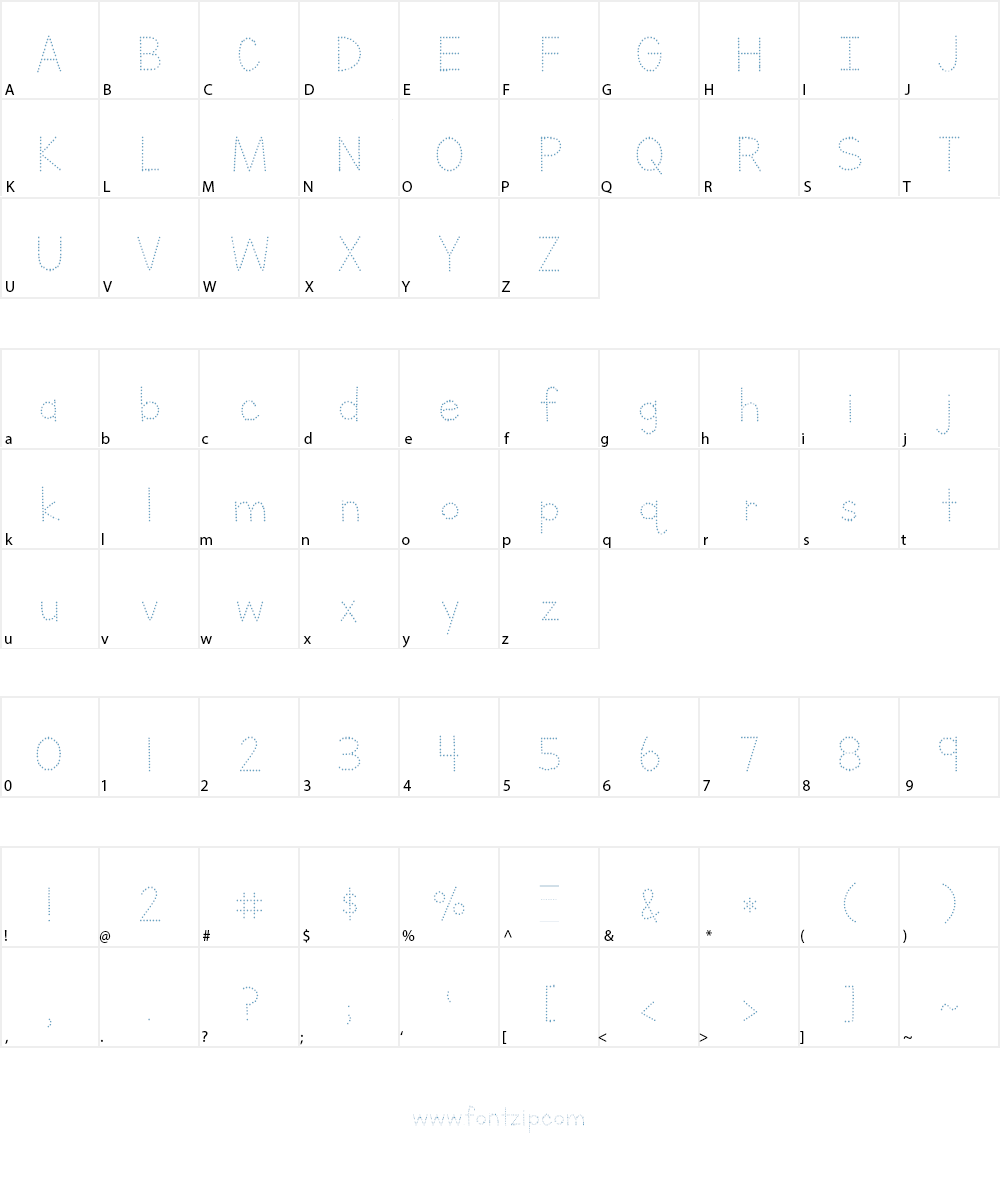
Letters for Learners Font Family is a friendly, legible type set designed with young students in mind. Each has over 300 characters, including many international letters.
Also, in the plain solid and dotted versions, you can use the ^ symbol for a lined space.